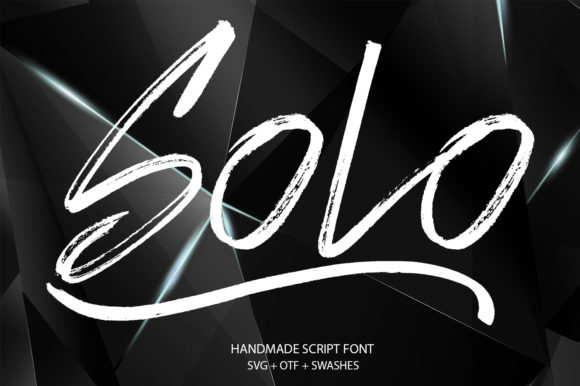
Unveil the Solo Font, a calligraphy script born from the creative spirit of Ahmet Faruk Åžahin. This exquisite font is carefully crafted to bring a touch of elegance and charm to your designs.
With its flowing lines, graceful curves, and delicate strokes, Solo effortlessly captures the essence of timeless beauty. Each letter is lovingly designed to dance across your screen, creating a visual symphony that captivates the eye and mesmerizes the soul.
Journey into a world of enchantment with Solo, a font that ignites passion and fuels creativity like never before. Embark on a typographic adventure, where your words take on a life of their own, infused with elegance and artistry.
With Solo, your designs will radiate sophistication, charm, and a timeless allure. This font is a treasure trove of artistic possibilities, perfect for creating logos, invitations, branding materials, and any project that demands a touch of sophistication.
Immerse yourself in the world of Solo, a font that invites you to embrace creativity and let your imagination soar. Its versatility knows no bounds, allowing you to explore endless design possibilities. From elegant wedding invitations to captivating social media graphics, Solo elevates your work to new heights.
Open the door to a world of elegance and artistry with Solo. Let your designs shine, captivate, and inspire. Choose Solo today and elevate your creative journey to new heights.